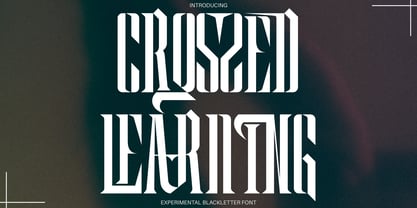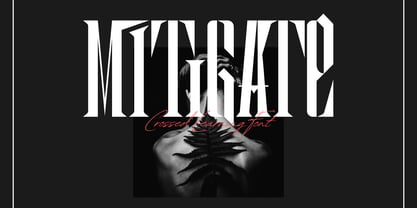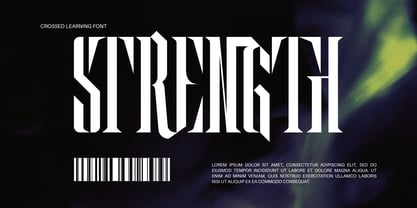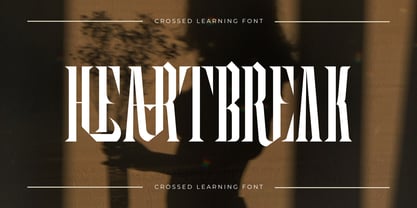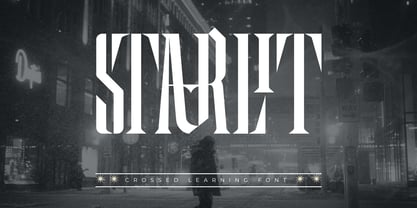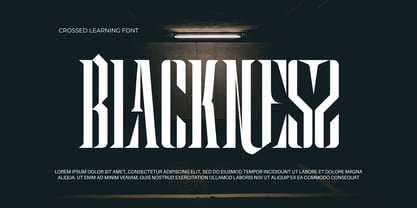
Crossed Learning
by 177Studio
Crossed Learning - Cyber Gothic Font – Modern Cyber Gothic & Ultra-Condensed Display Serif, a formidable ultra-condensed display serif font that fuses the majestic architecture of classical Blackletter with raw, futuristic cyber-brutalism. Defined by its towering vertical proportions, razor-sharp dagger spurs, and chiseled angular cutouts, this typeface commands maximum visual authority in any layout.